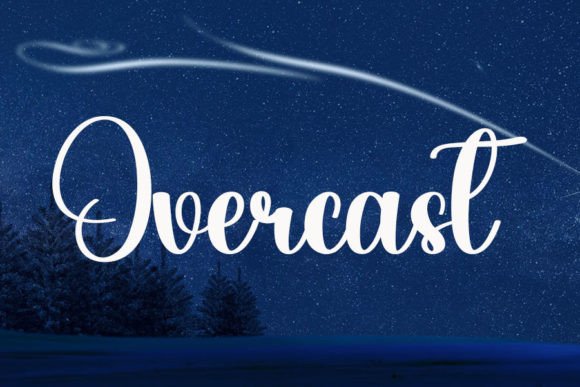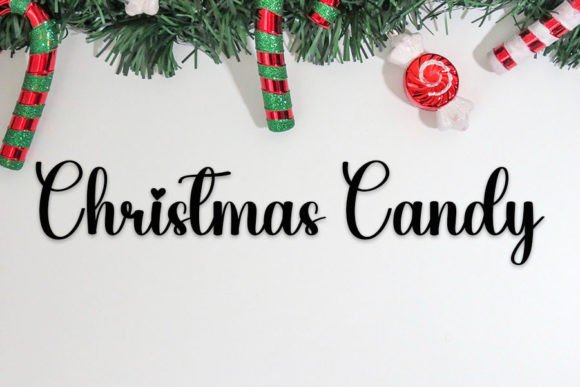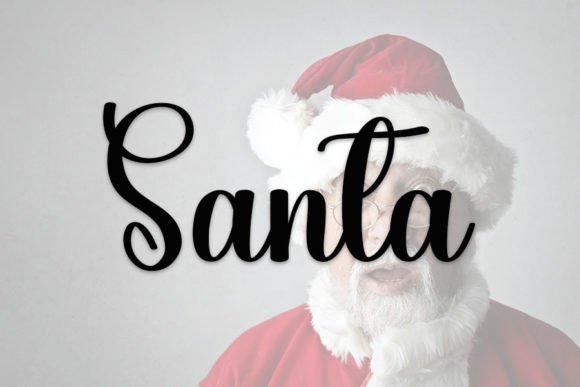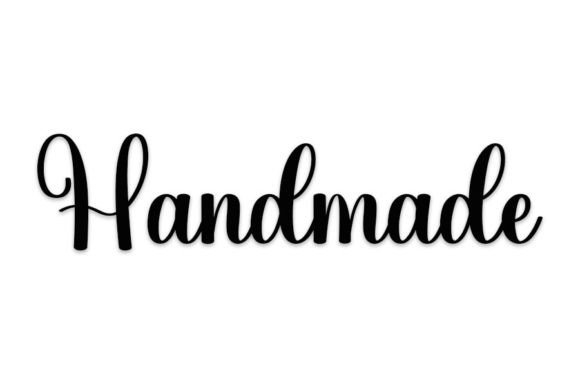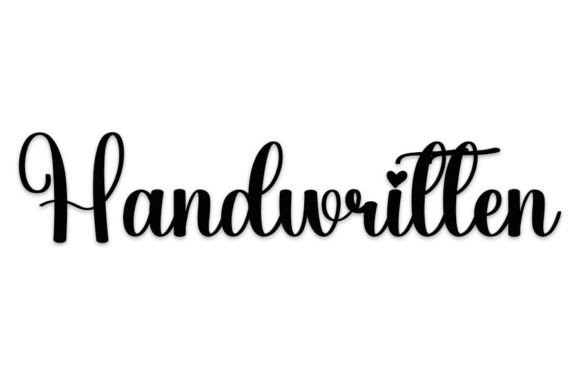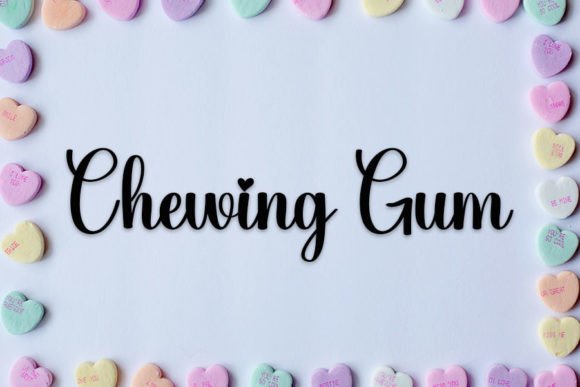
Get Ready to Deck the Halls with Christmas Font
As a designer, there’s nothing quite like that moment when inspiration strikes and you know exactly what you want to create. The lights are twinkling, the fireplace is crackling, and the smell of freshly baked cookies wafts through the air – it’s the perfect time to get creative and start brainstorming ideas for your holiday projects.
One of the most beautiful and timeless fonts to incorporate into your designs is the Christmas Font. This elegant handwritten font adds a touch of sophistication and whimsy to any project, making it perfect for holiday cards, gift tags, and even social media graphics. Whether you’re a seasoned pro or a design newbie, the Christmas Font is a valuable addition to your toolkit, offering a unique and recognizable style that’s sure to make your designs stand out.
Key Features of Christmas Font
- Unique Characteristics: Christmas Font features a distinctive, hand-drawn style with intricate details and ornaments, making it perfect for festive designs and holiday-themed projects.
Designer Review: Christmas Font
Overall, I’d say Christmas Font is a decent choice for holiday-themed designs. ✨ The font’s playful and festive feel is perfect for capturing the spirit of the season. The bold, cursive style is sure to add a touch of whimsy to any project.
Here are some specific things that work well:
- ✨ The font’s color palette is quite extensive, offering a range of colors to suit different design needs.
- ✨ The font’s bold, cursive style is well-suited for headings and titles.
- ✨ The font’s playful feel is perfect for designs targeting a younger audience.
However, there are a few limitations that might make you think twice:
- ⚠️ The font’s cursive style can be overwhelming in large blocks of text.
- ⚠️ The font’s playfulness might not be suitable for more formal or professional designs.
- ⚠️ The font’s color palette can be a bit garish in certain combinations.
Overall, I’d recommend Christmas Font for holiday-themed designs that require a playful, festive feel. Just be mindful of the font’s limitations and use it judiciously to avoid overwhelming your audience.
Use the Christmas Font to add a festive touch to your designs, such as:
- Creating holiday cards and invitations.
- Making festive social media graphics.
- Designing holiday-themed logos and branding materials.
The Christmas Font is commonly used in:
- Christmas and holiday-themed designs.
- Winter and snow-themed designs.
- Festive and celebratory designs.